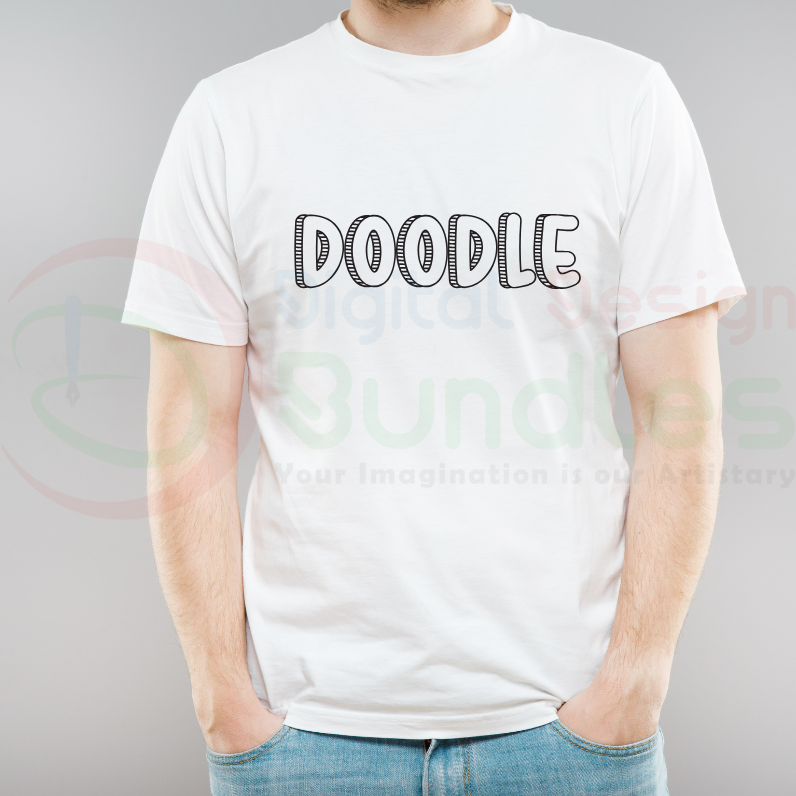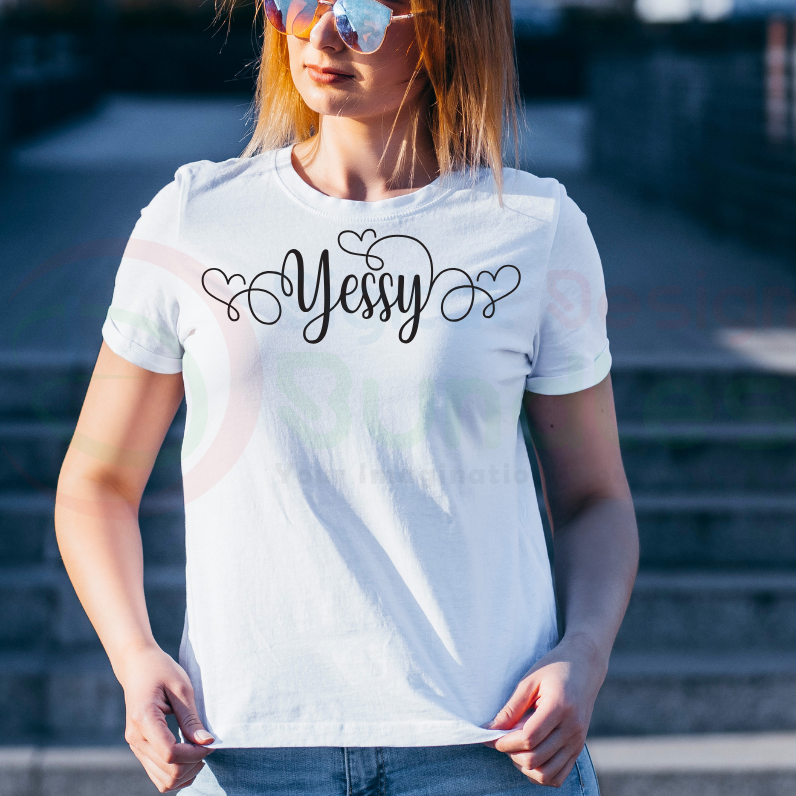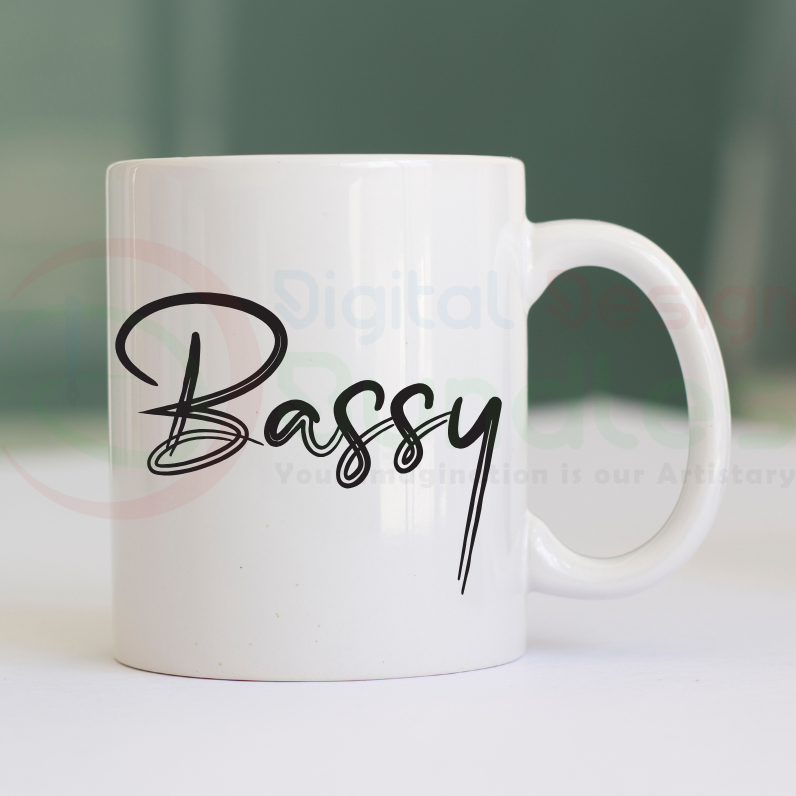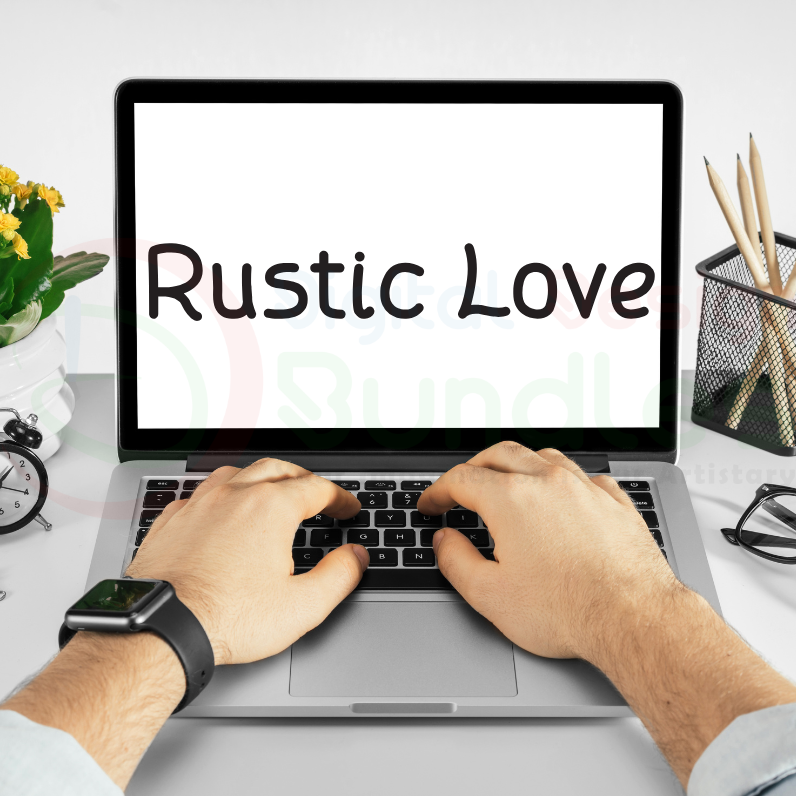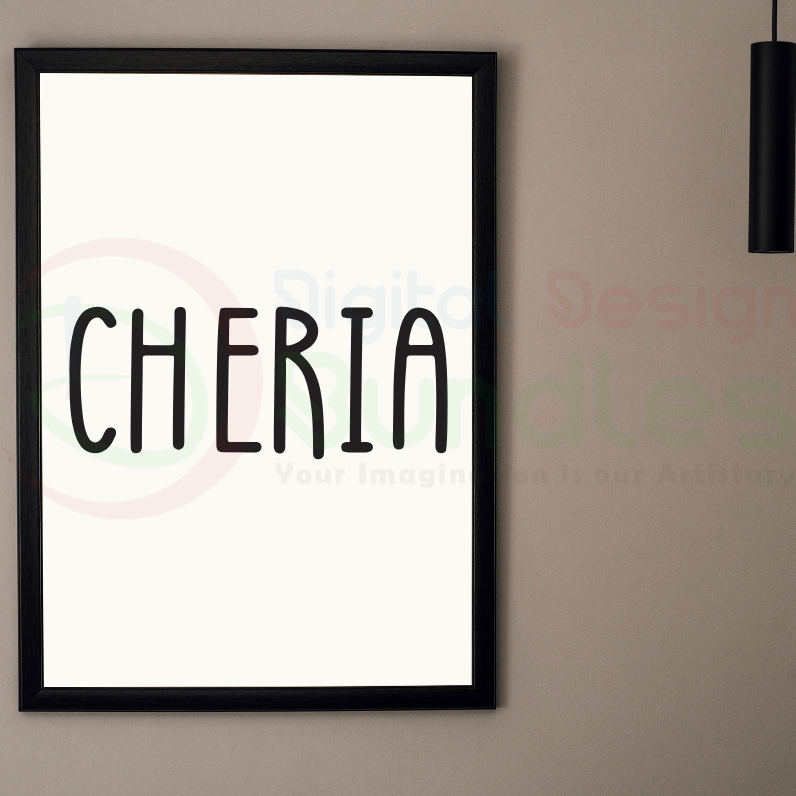
Fonts SVG Bundle | Ultimate Script & Craft Fonts
Upgrade your design toolkit with this Fonts SVG Bundle, featuring a diverse collection of elegant script fonts and creative crafting fonts. Whether you're making custom t-shirts, invitations, logos, or digital art, these fonts will add a professional and stylish touch to every project.
✒️ Beautiful script and decorative fonts
Enhance your creative projects with this ultimate fonts bundle — your go-to source for stylish and versatile typography! Let your creativity flow with every letter. ✨